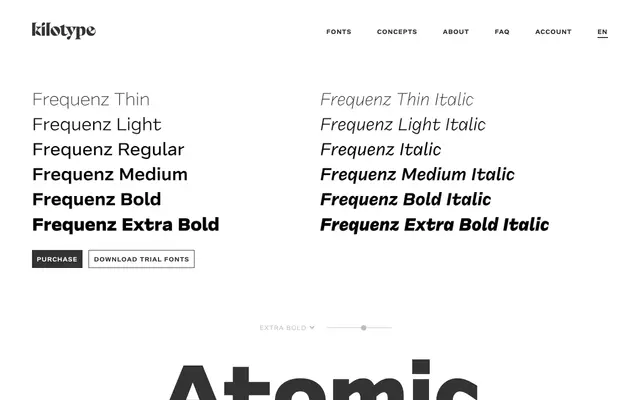
Frequenz
Kilotype · Selma Losch · 2018
A deliberately unrefined grotesque by Selma Losch, where minimal optical correction and unconventional letter spacing create a purposefully irregular rhythm.
Designed by Selma Losch and published in 2018, Frequenz challenges the convention of optically perfecting letterforms, keeping proportions and stroke weights intentionally close to their raw origins. The family runs across six weights from Thin to Extra Bold, each with a matching italic, and covers more than 400 languages using the Latin alphabet. It is a companion to Sequenz, both exploring how far a typeface can deviate from orthodoxy while remaining functional.
Frequenz is a sans-serif with deliberately unconventional rhythm and minimal optical correction, placing it within the grotesque tradition but with a nonconformist, design-led sensibility rather than strict neutrality.